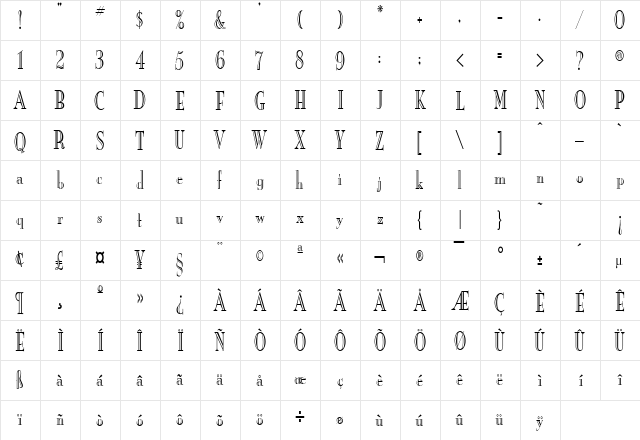
New Eng. Engr. Condensed Normal
Design Context for New Eng. Engr. Condensed Typeface
New Eng. Engr. Condensed takes a measured approach to typography — its balanced proportions and neutral character make it a reliable workhorse for both digital and print work. The condensed width makes it efficient for tight spaces without sacrificing legibility.